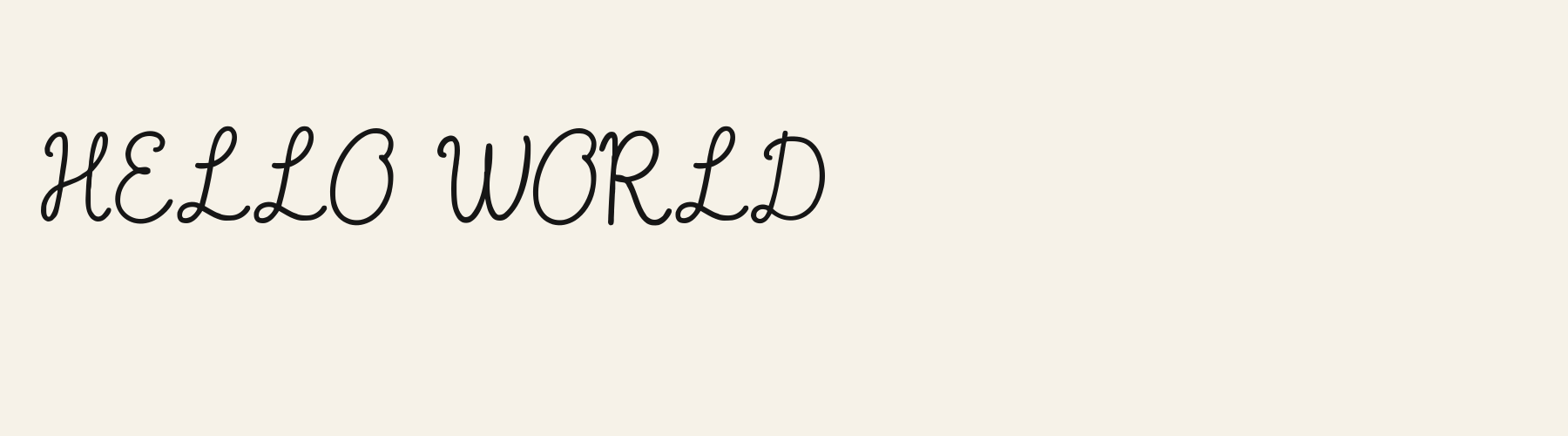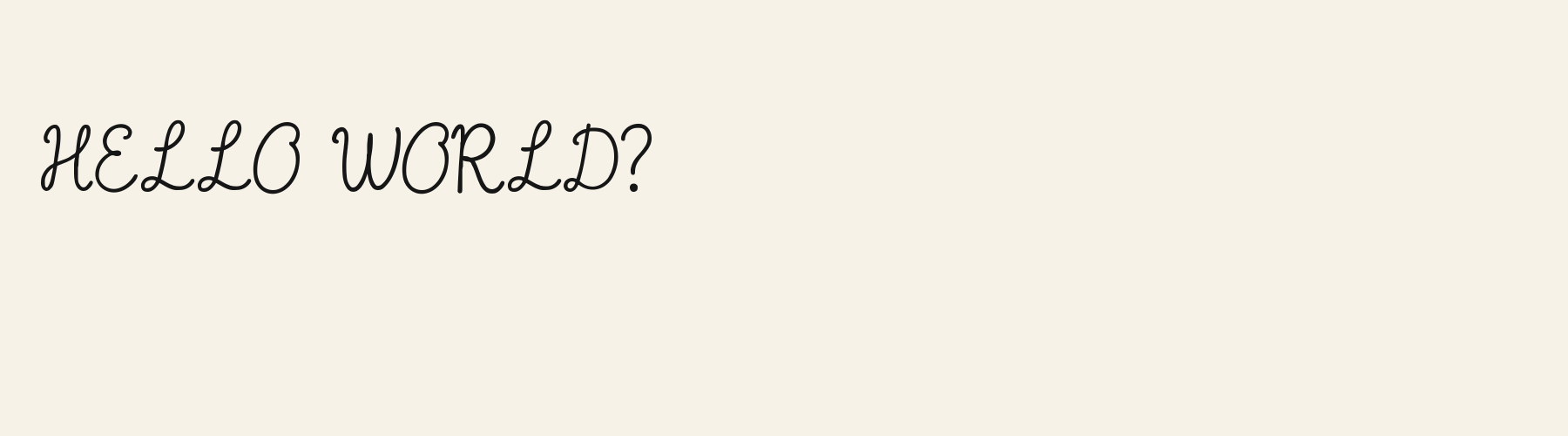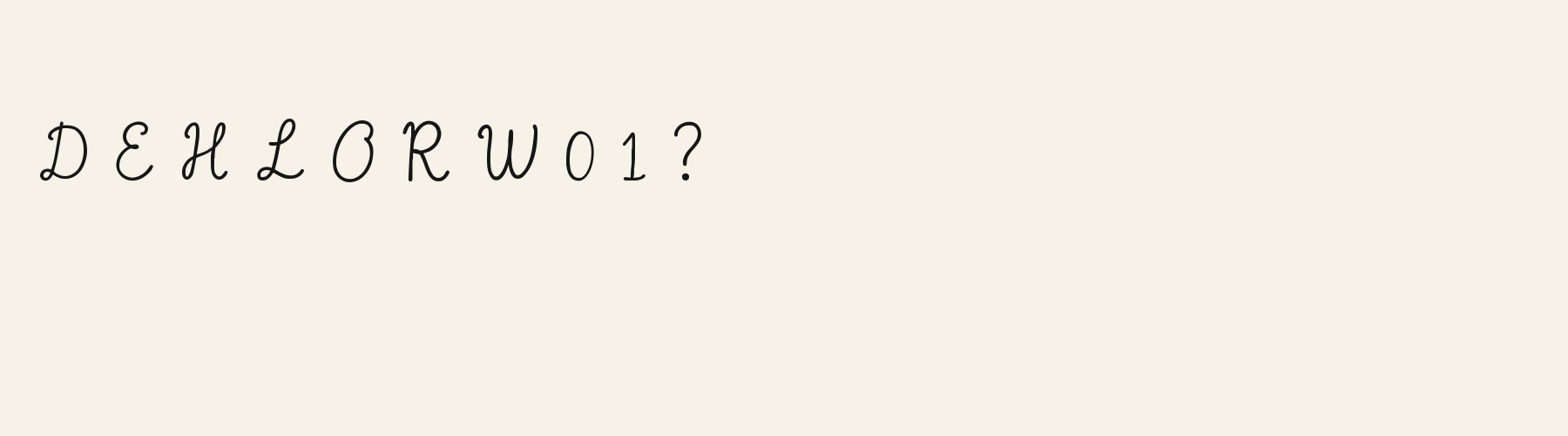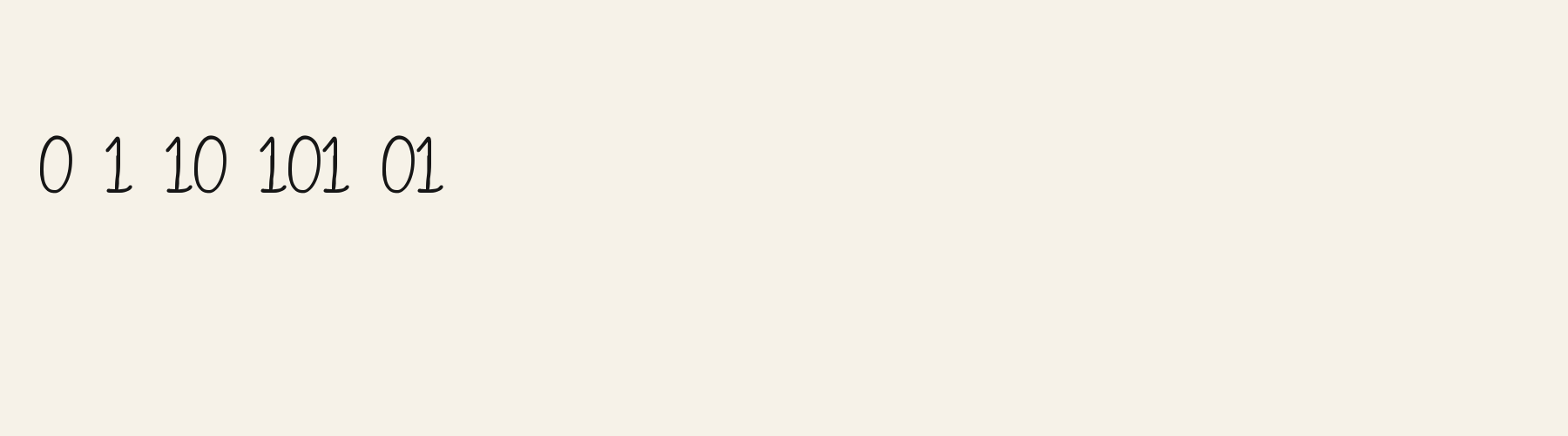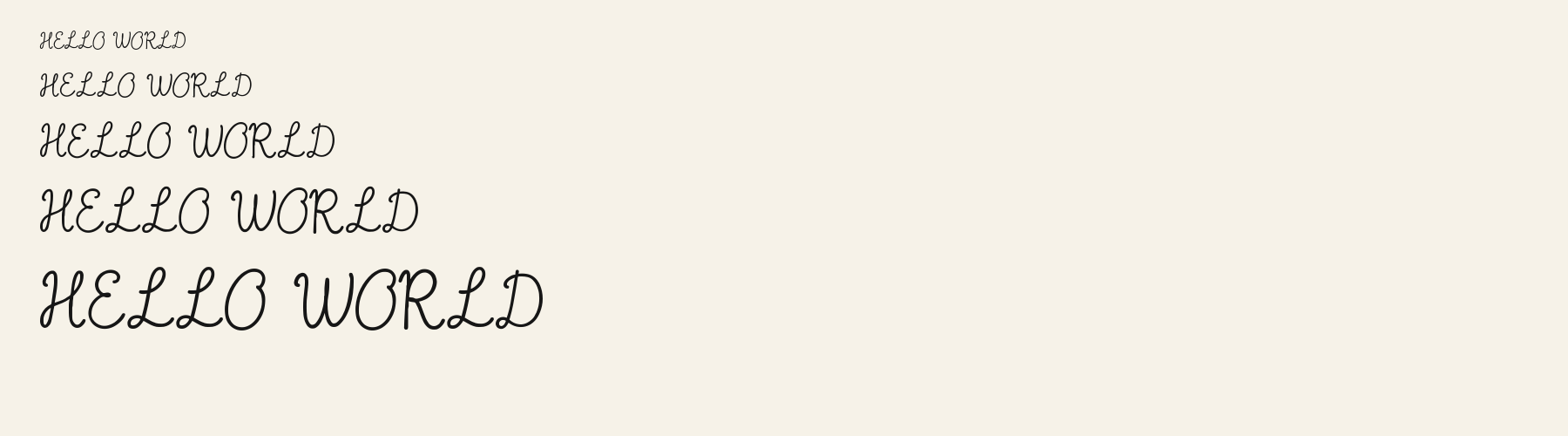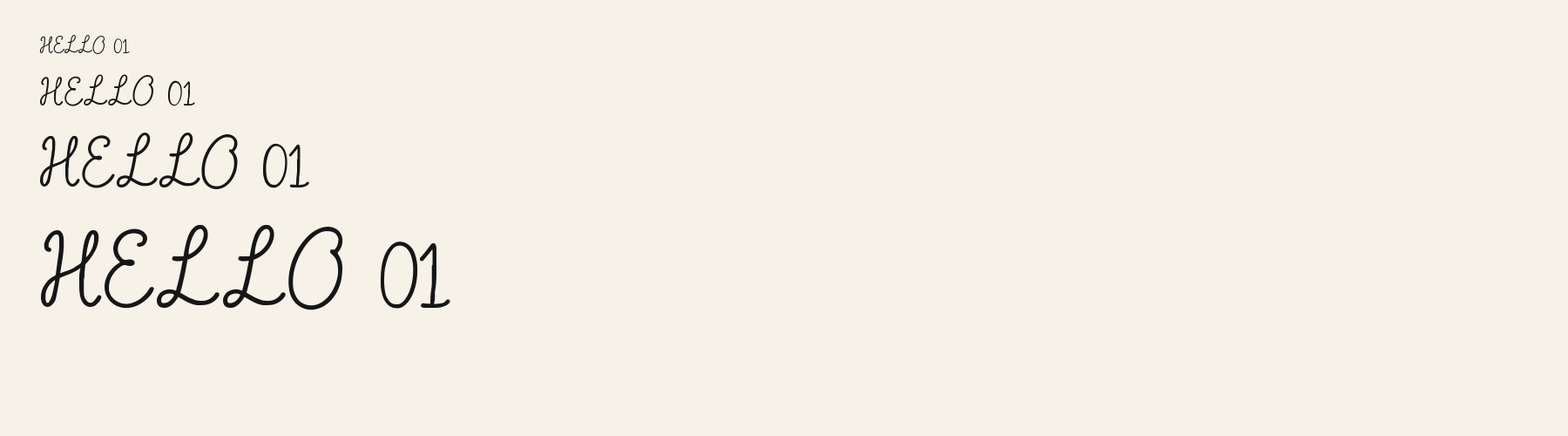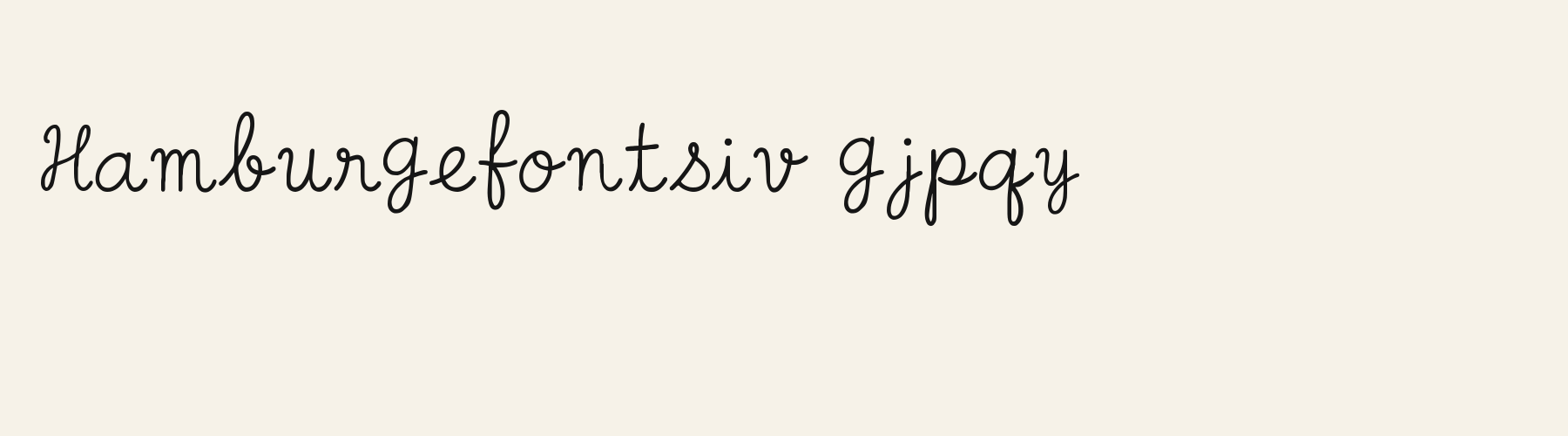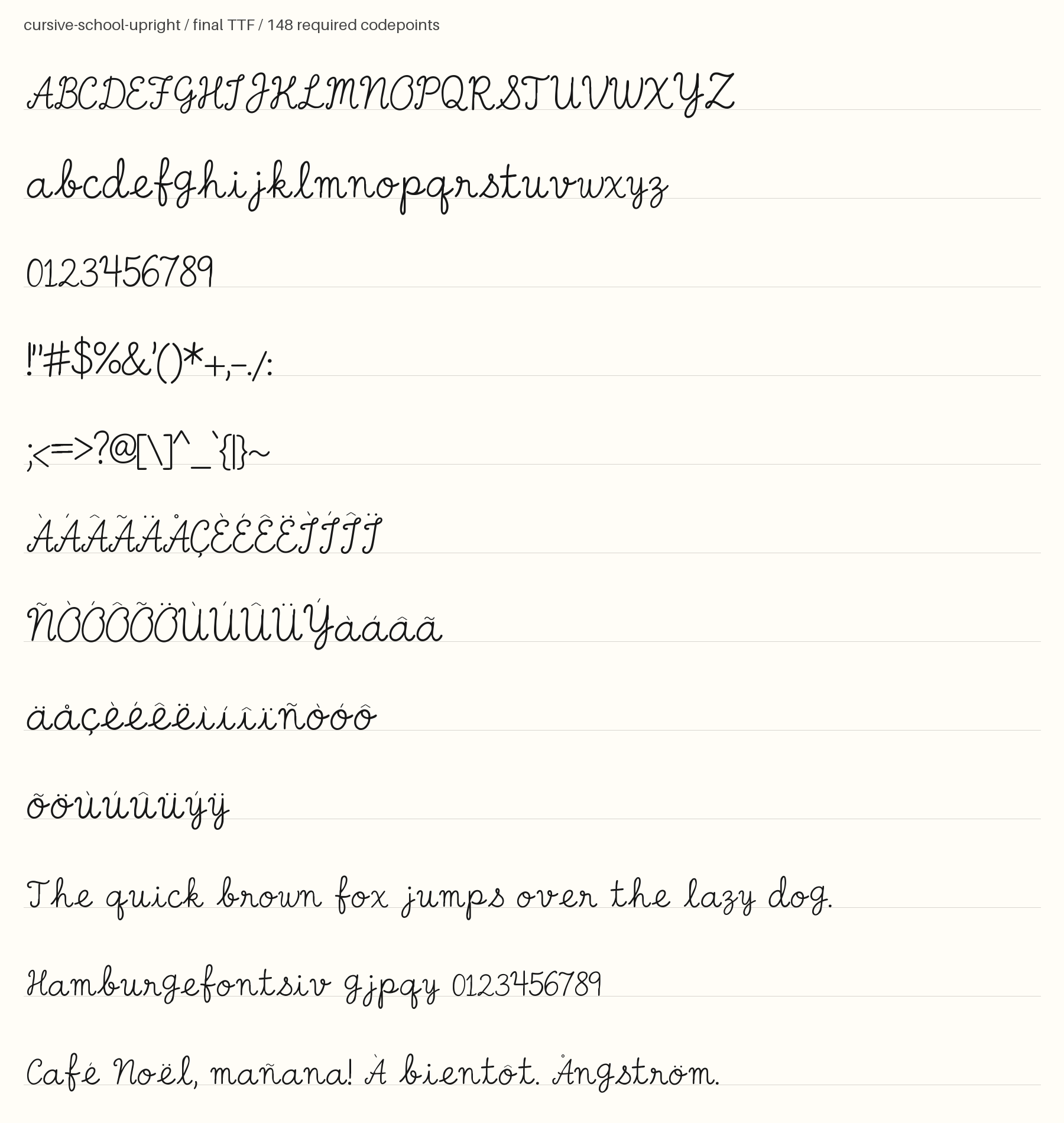
Cursive Soft Bounce
ScriptCursive Soft Bounce
Cursive School Upright is a notes and school labels. Medium monoline pen, nearly vertical stems, clearly distinct true lowercase. Best for notes and school labels.
Includes all 95 printable Basic Latin characters and 148 glyphs in total.
Verified language coverage: English (Basic Latin)